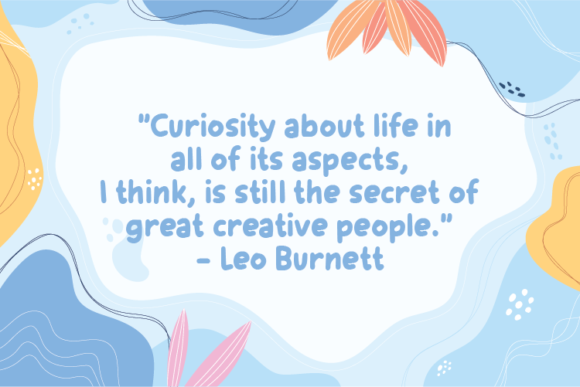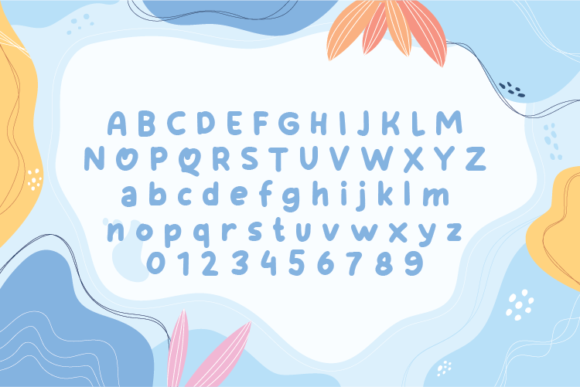
Gloria Spring Font
db-ku.com - Script & Handwritten -- Gloria Spring is a natural handwritten font without changing a single node in each character’s indentation, this makes this font very interesting and unique. Perfect for quotes, notes, tees, and any product design.